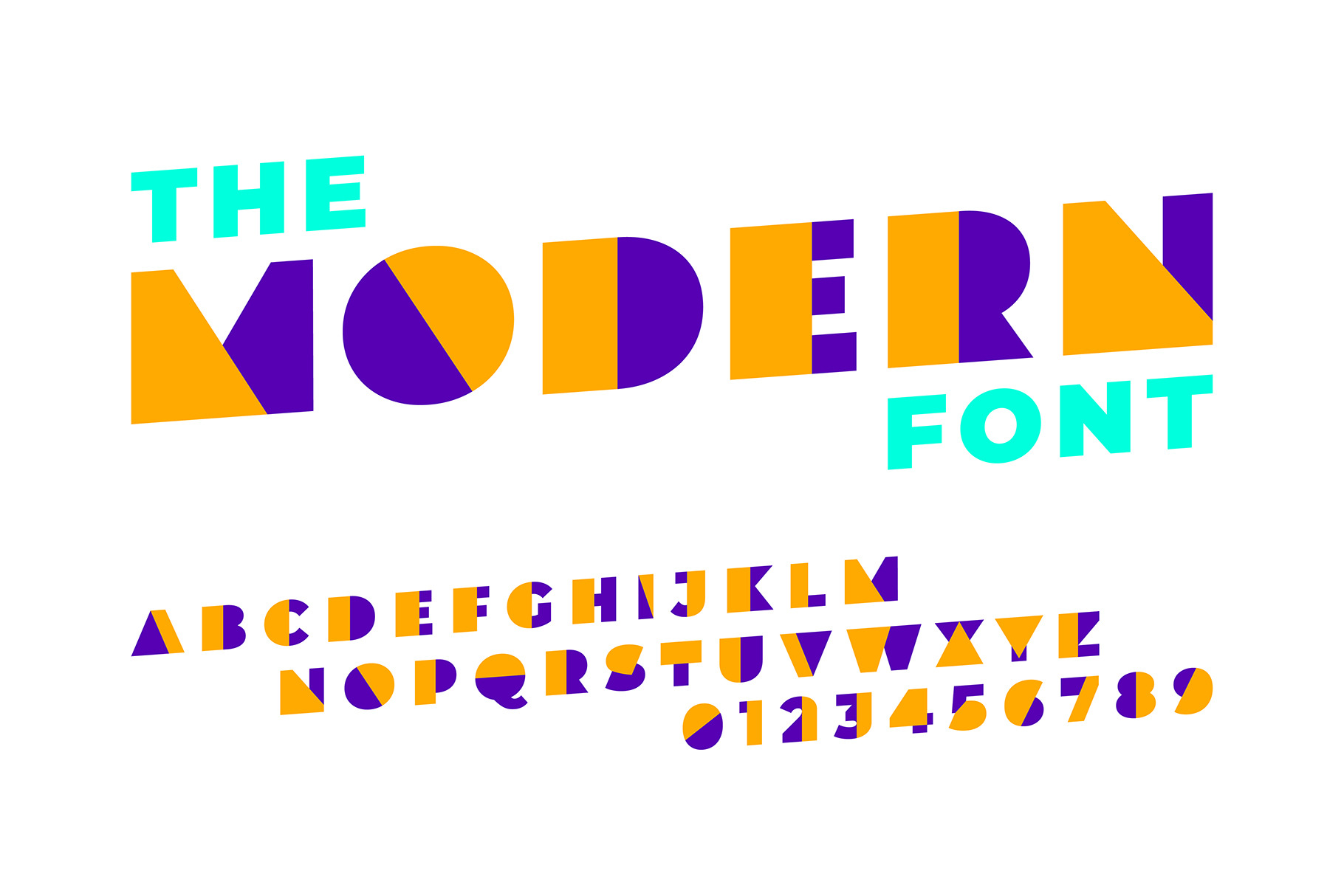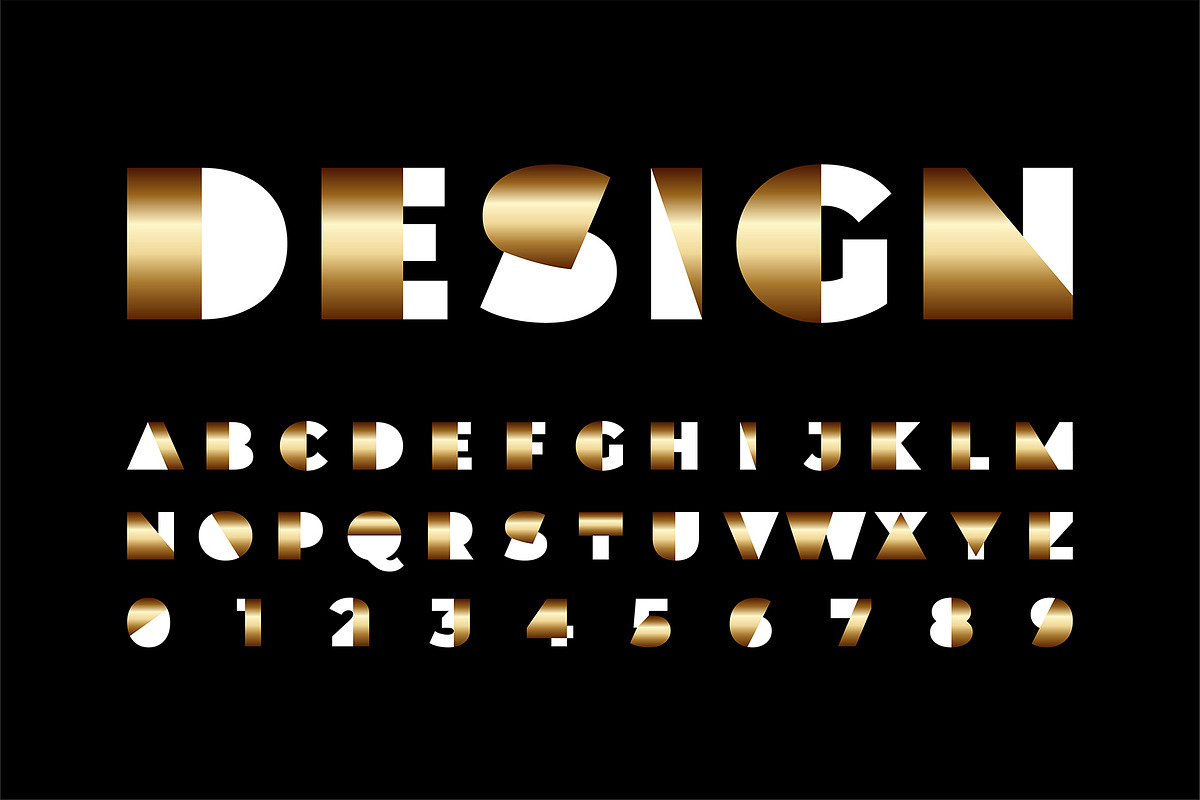
Modern Minimal Alphabet Fonts
Modern Minimal Alphabet Fonts. Orange Purple and Gold White Creative Typeface for Posters, Headlines, Branding and Graphic Design - EPS (Not a Font!)
- Uppercase letters A - Z (italics and normal)
- Numbers 0 - 9 (italics and normal)
- Clean, modern, and unique alphabet design